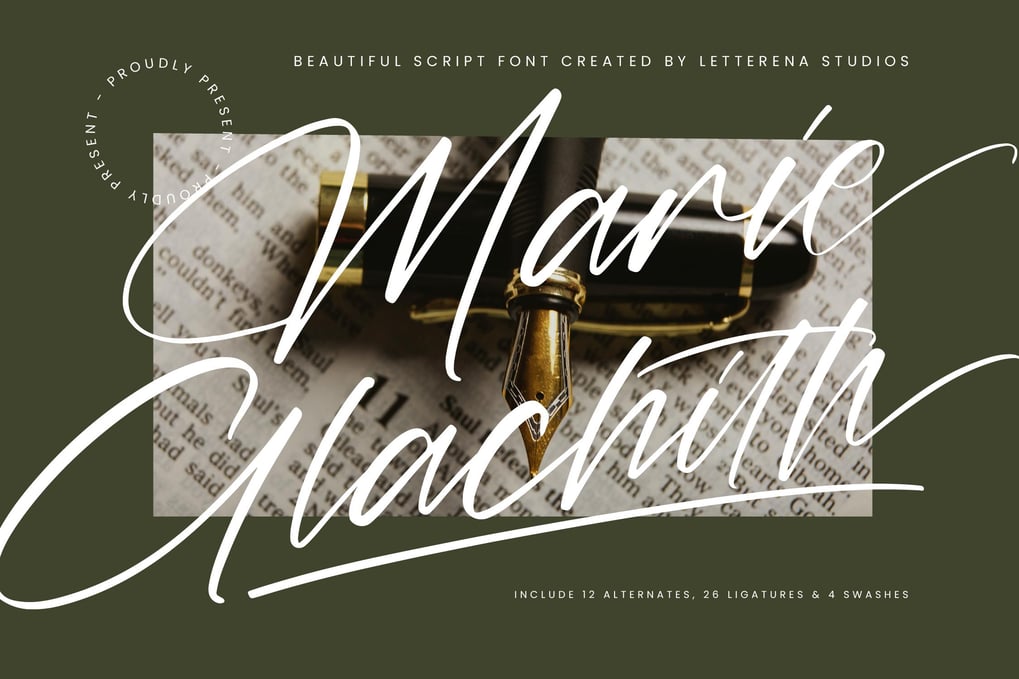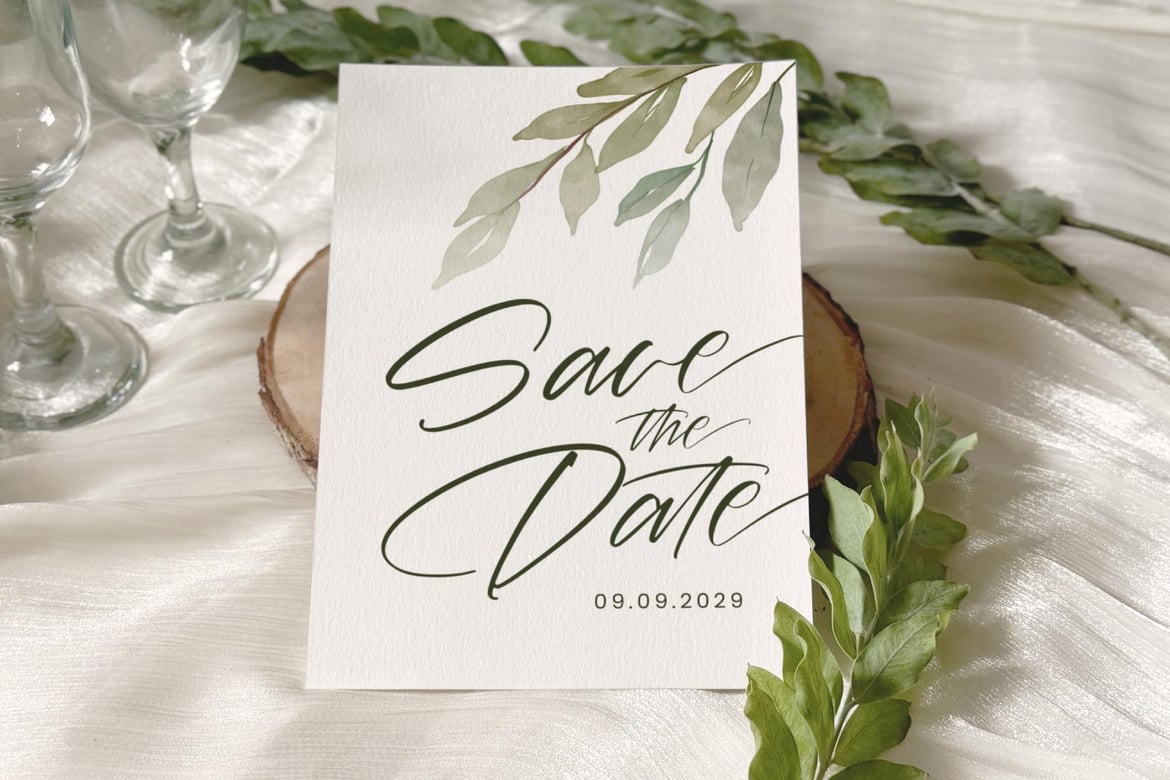
Marie Glachith Script Font
* Hi ladies & gentlemen, this is one of our fonts suitable to complement your digital and printed creative products. This font is perfect for posters, social media posts, branding, personal projects, etc.